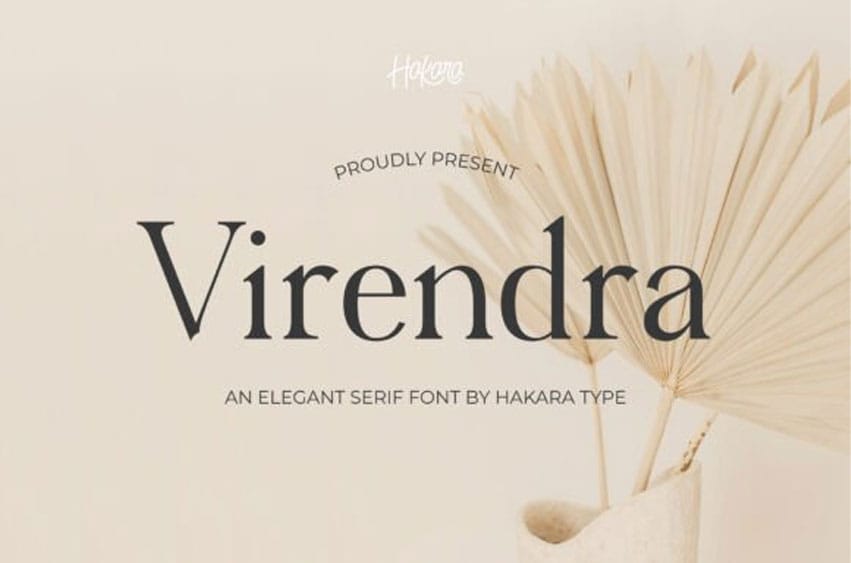
Virendra Font embodies timeless elegance with a captivating simplicity. Its gracefully curved serifs add a classic touch, striking the perfect balance between beauty and versatility across various design applications. Each letter flows like a soft melody from the past, proving that true aesthetics stand the test of time.
Complete with uppercase, lowercase, numbers, standard symbols, and multilingual support, Virendra is ready to elevate your designs with its sophisticated charm.